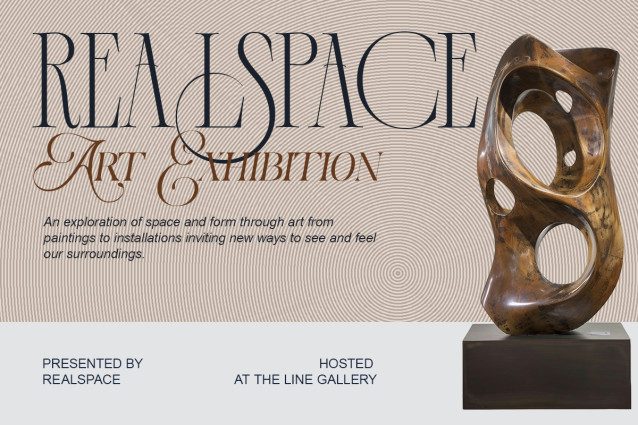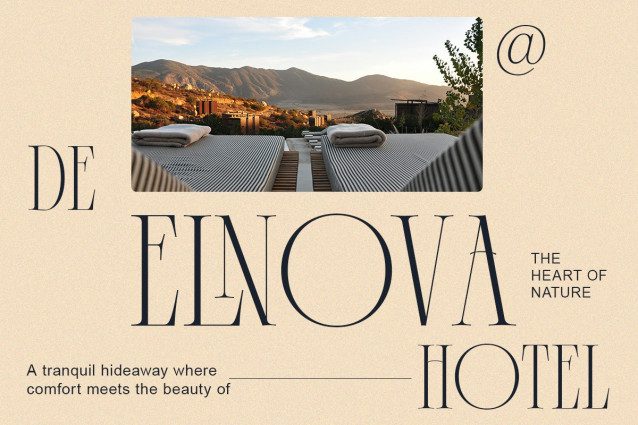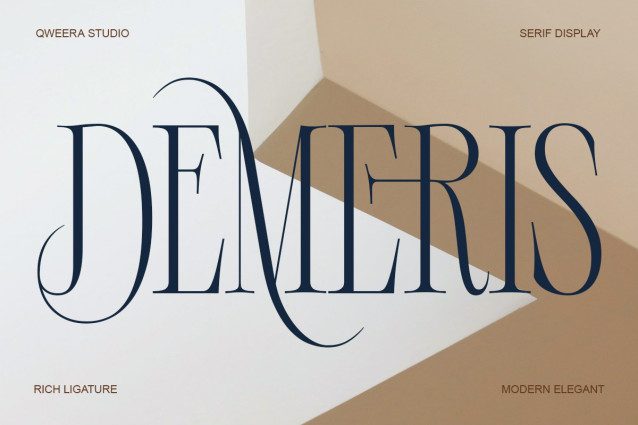
Demeris Serif Font
Demeris Serif Font a sharp, tall, and graceful serif font with rich ligatures and a luxurious minimalist soul.Introducing Demeris, a high-contrast modern serif font that blends elegance and power into every curve. With tall, graceful letterforms and stylish ligatures, this typeface is designed for premium branding, sophisticated editorial layouts, and timeless visual storytelling.
Crafted to embody confidence, class, and clarity, Demeris is your go-to choice for fashion magazines, logos, packaging, and refined digital designs.